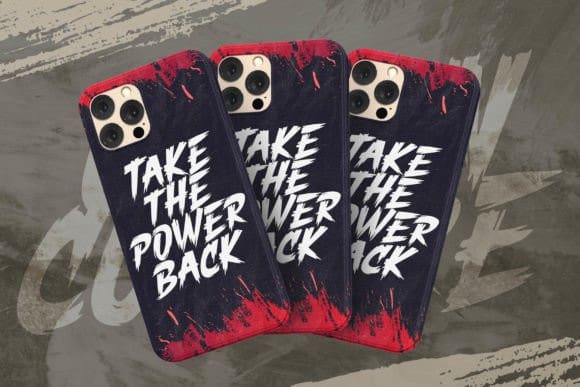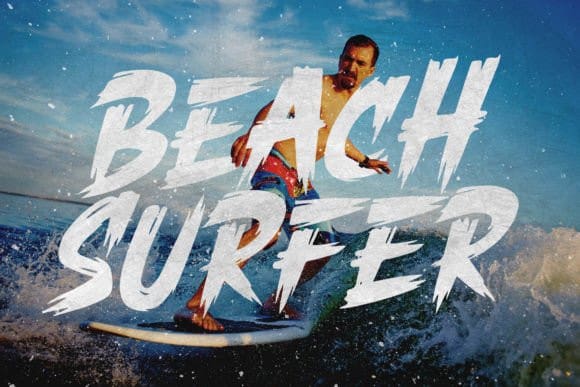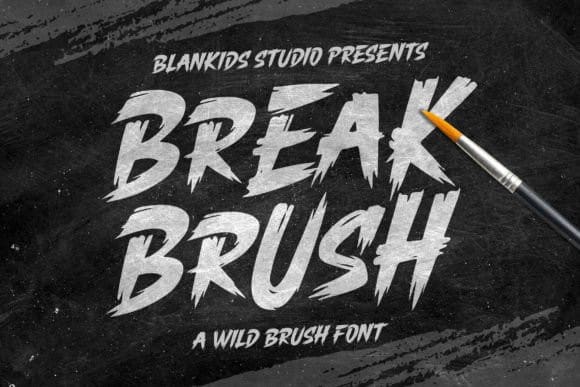
Break Brush Font
Break Brush Font is a display font inspired by brush lettering style typography. This font is perfect for a design that makes it more attractive and playful. It was made with a very good level of aesthetics, making it suitable for book covers, posters, packaging, merchandise, logotype, and much more.